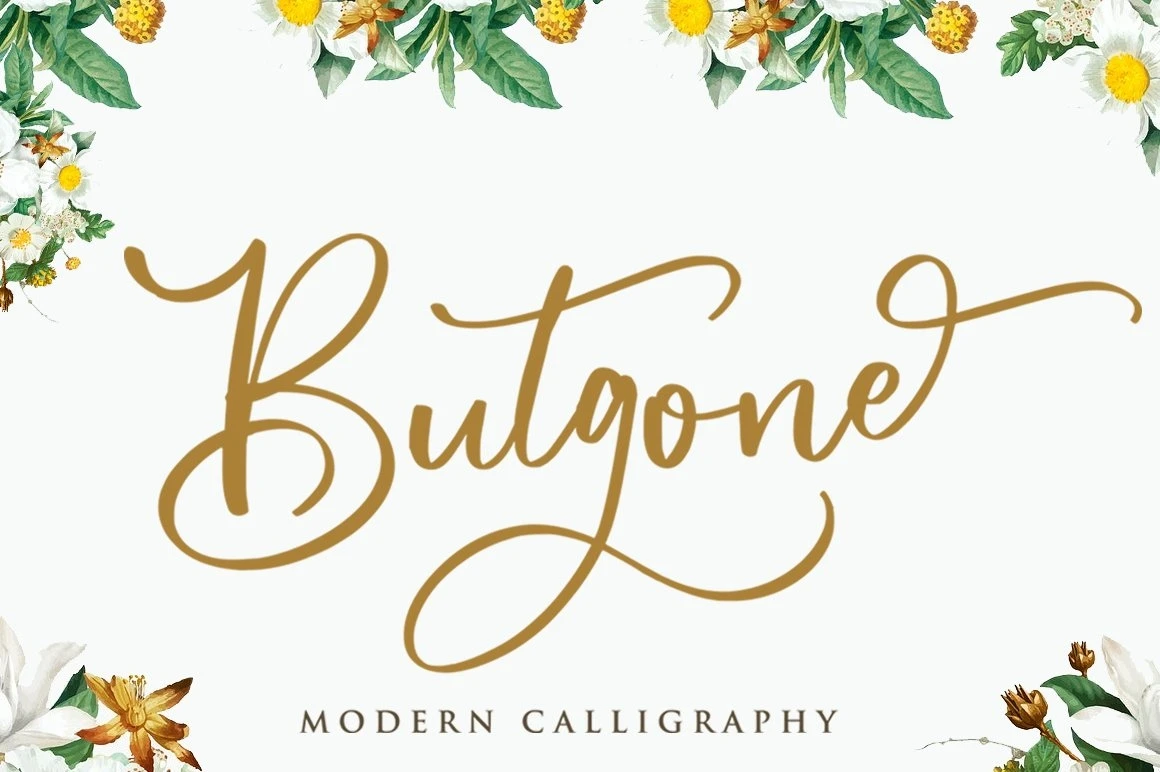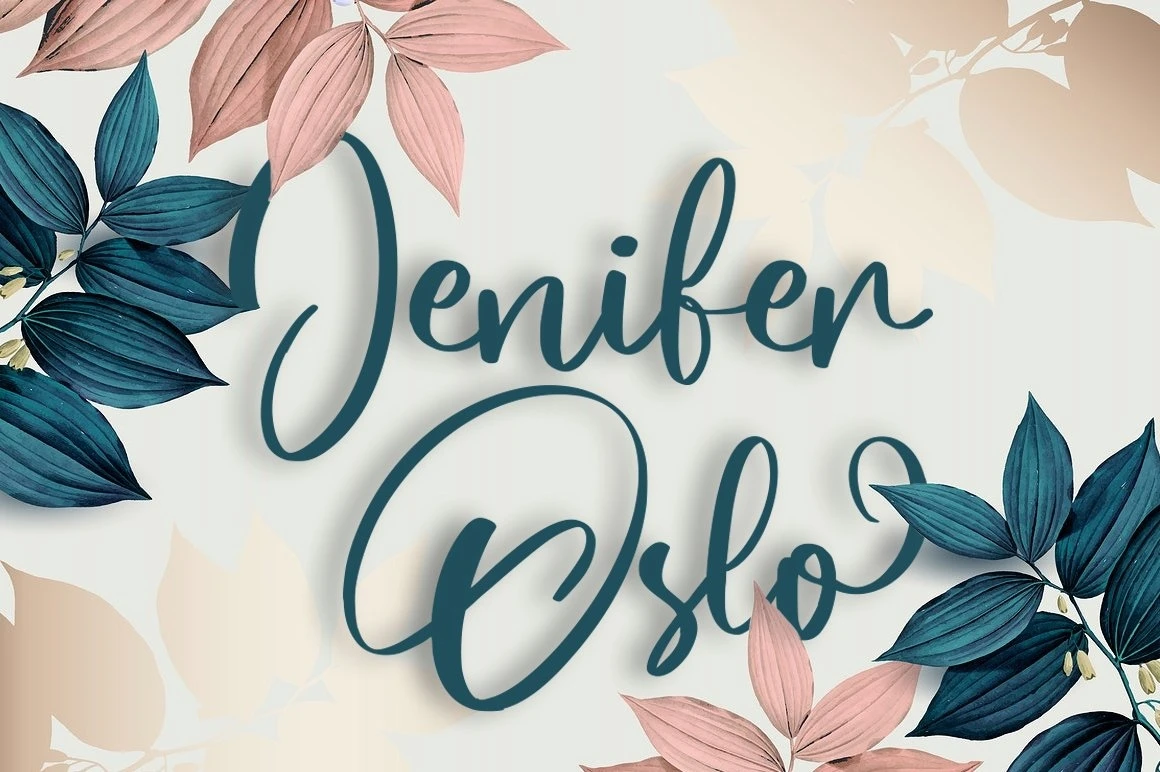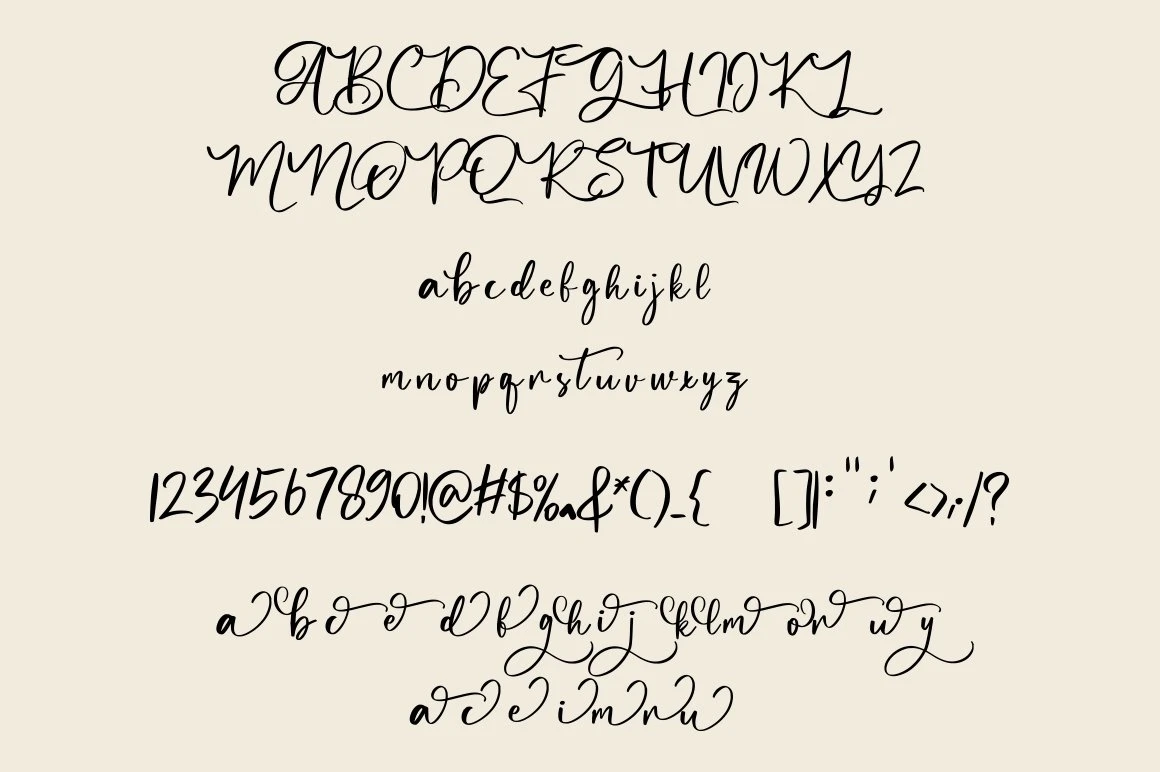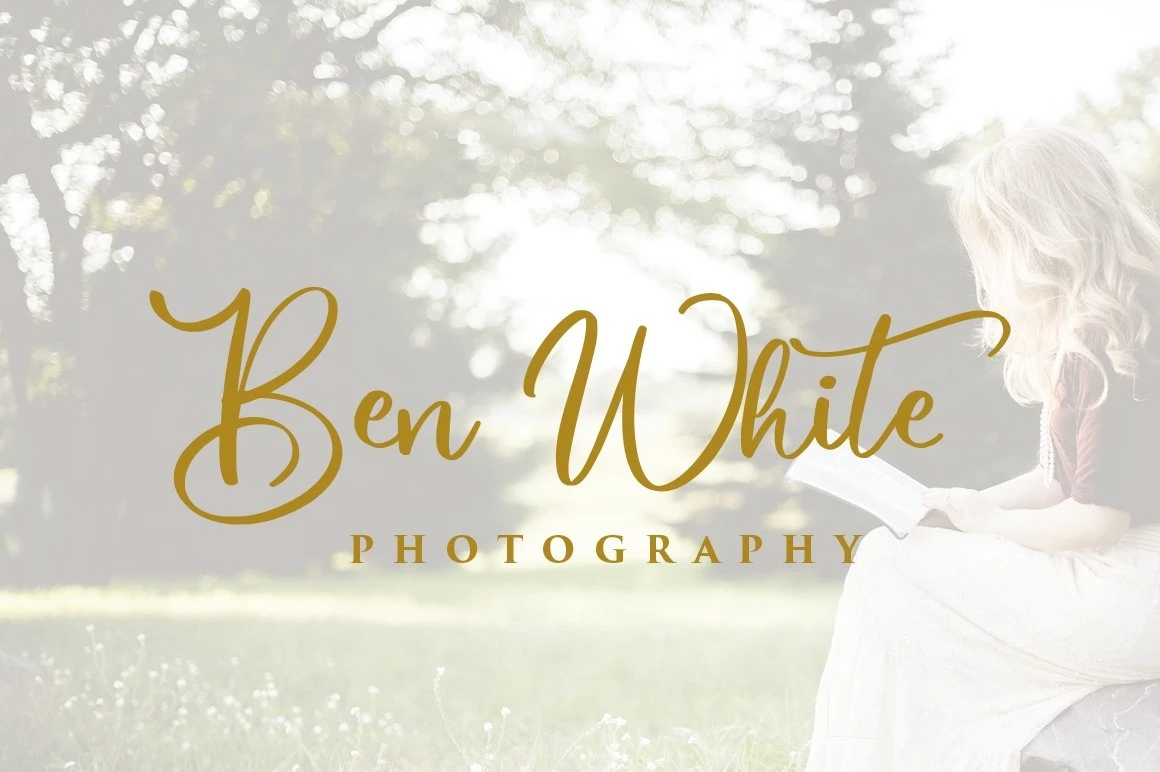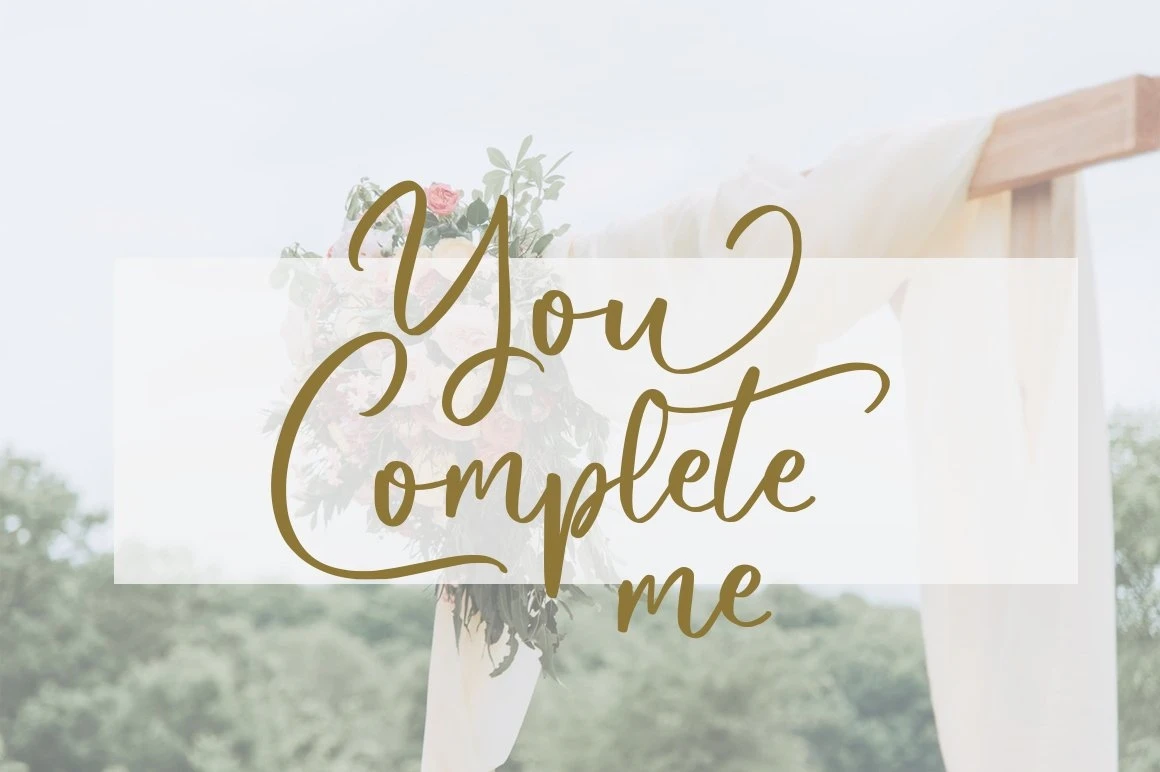
Introducing Butgone script font style fresh and modern calligraphy script new. typeface attract interesting and so beautiful!
Butgone also has some extra glyphs that will create the character of the more interesting font, and font is also suitable for making logos, invitations, greeting cards, quotes, posters and others.
Upper + Lowercase Letters
Numbers + Punctuation